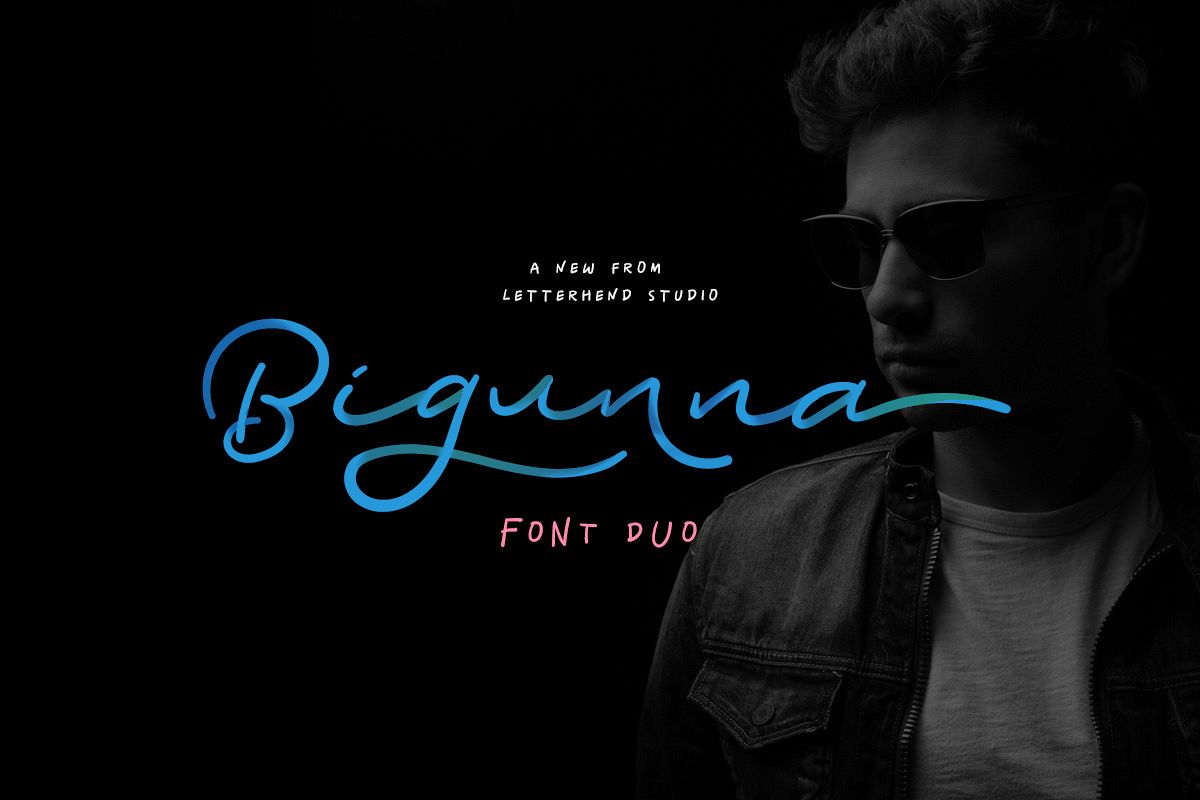
Bigunna - Font Duo
Please welcome, Biguna Font Duo! A beautiful yet fun font duo! This typeface is consist of two type of font, script and sans. The script version was made from actual hand writing so it has the natural feel. While the sans version has the playful touch so they will looks great when both font combined together. Perfect to be used for logo, quotes, apparel design, wedding invitation, and any design needs especially for a girly / feminine theme.What you will get :